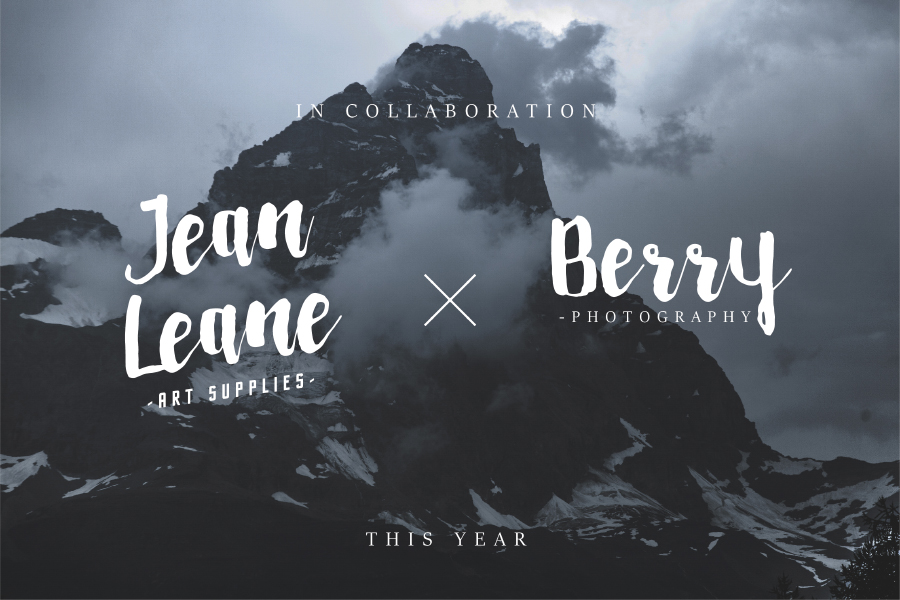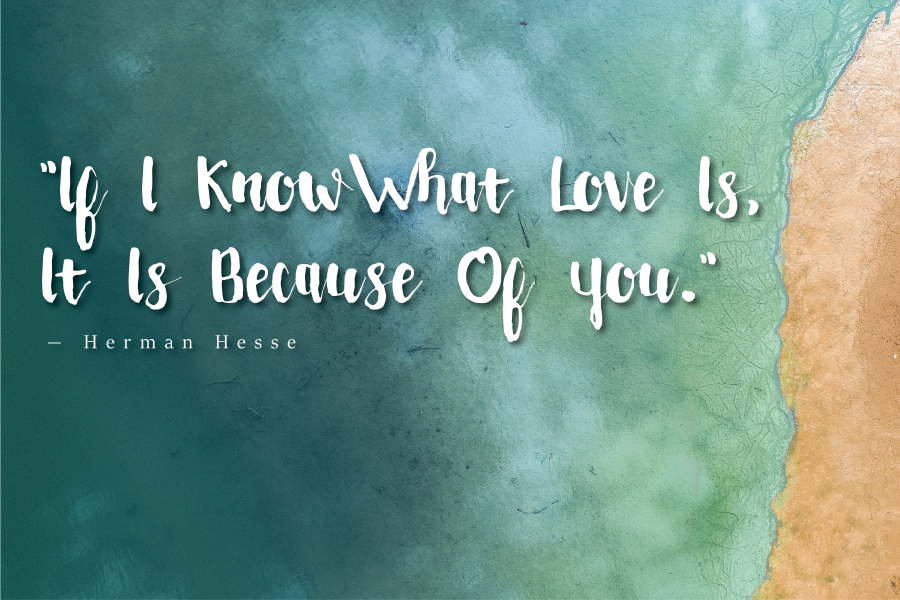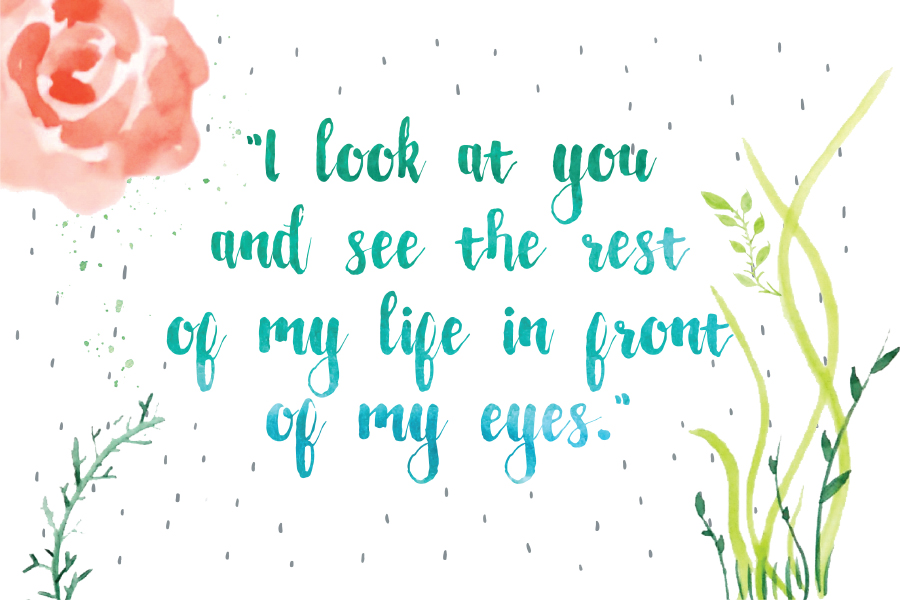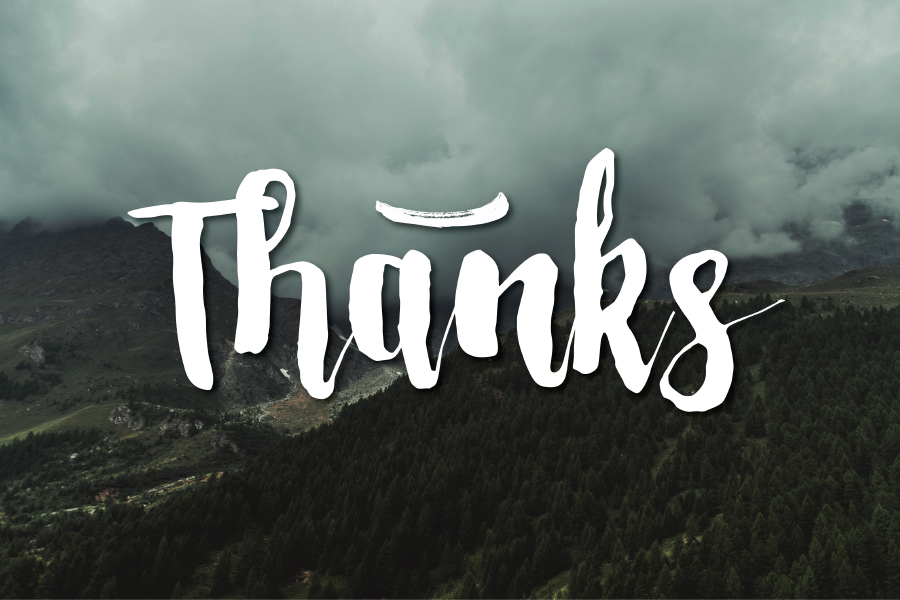
Peudada Script – Free Demo
Hello world..!!! Introducing Peudada Script Font! Peudada designed and shared by Muhammad Naufal Anis. Peudada script font for your projects! Hand drawn brush script! ? This handwritten font is perfect for cards, prints, logos, wedding invitations, arrange illustration and decoration.